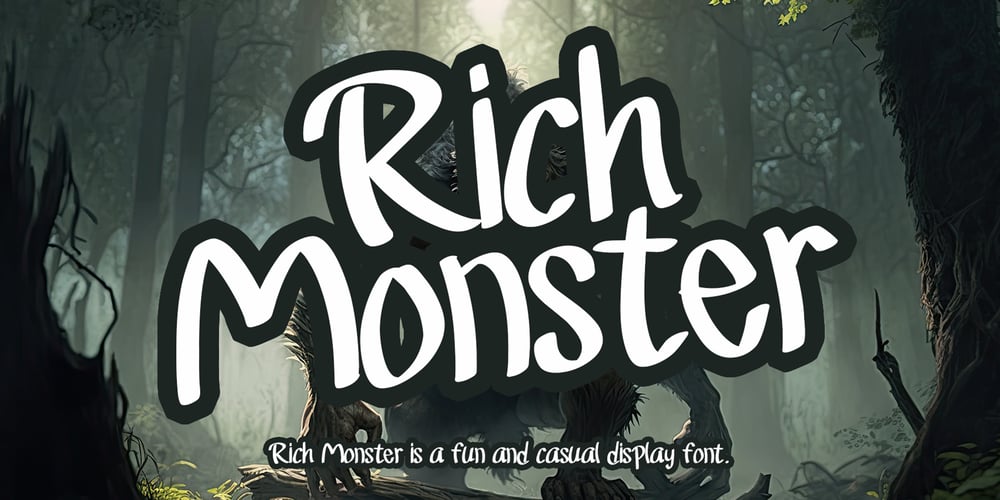
Rich Monster Font Family was designed by Ahmad Afandi and published by Letterafandi Studio. Rich Monster contains 2 styles and family package options. Rich Monster is a fun and casual display font. No matter the topic, this font will be an incredible asset to your fonts’ library, as it has the potential to elevate any creation.